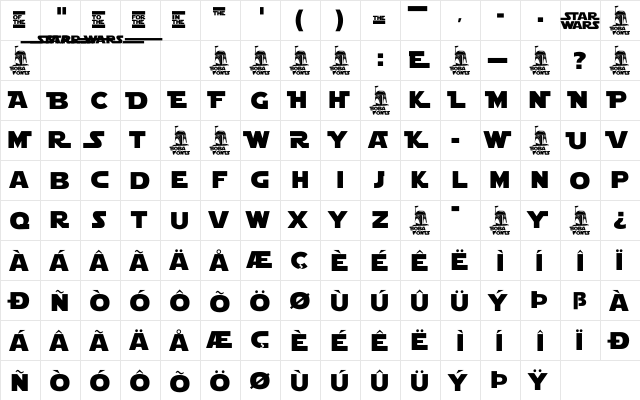
Star Jedi Logo DoubleLine1 Regular
Design Context for Star Jedi Logo DoubleLine1 Typeface
Star Jedi Logo DoubleLine1 takes a measured approach to typography — its balanced proportions and neutral character make it a reliable workhorse for both digital and print work.